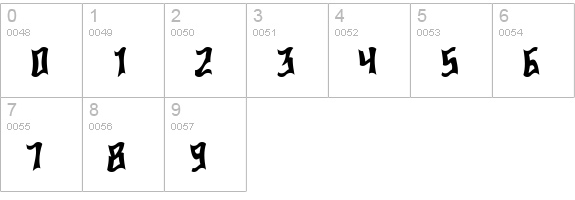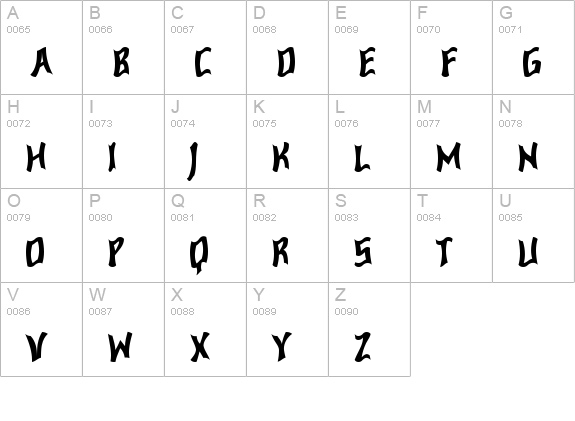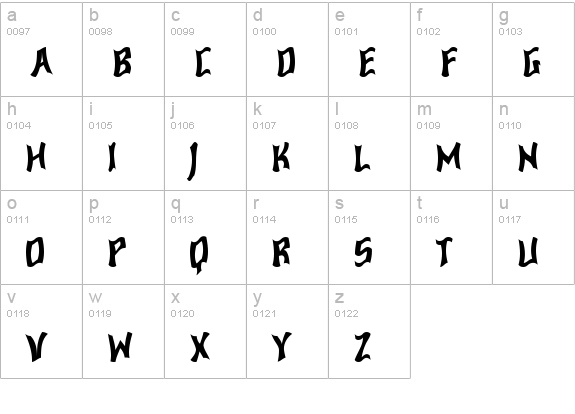
ConcavexCapsWave Font Details
Introducing ConcavexCapsWave font, a stunning and unique typeface that combines elegance with a touch of modernity. This font features captivating concave shapes and flowing wave-like patterns, making it perfect for adding a stylish and sophisticated flair to your projects. The ConcavexCapsWave font is not only visually appealing but also highly versatile, suitable for a wide range of design applications including branding, packaging, posters, and more. Its bold and distinctive appearance will surely make your text stand out and leave a lasting impression on your audience. Best of all, ConcavexCapsWave font is available for free download at FontsMarket.com. So, whether you're a graphic designer looking to add a fresh twist to your creations or a business owner seeking a memorable visual identity, this font is the perfect choice for you. Don't miss out on the opportunity to elevate your designs with this eye-catching typeface. Download ConcavexCapsWave font today and let your creativity shine!